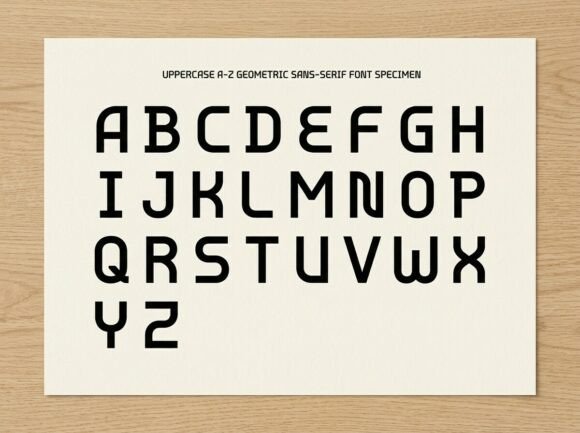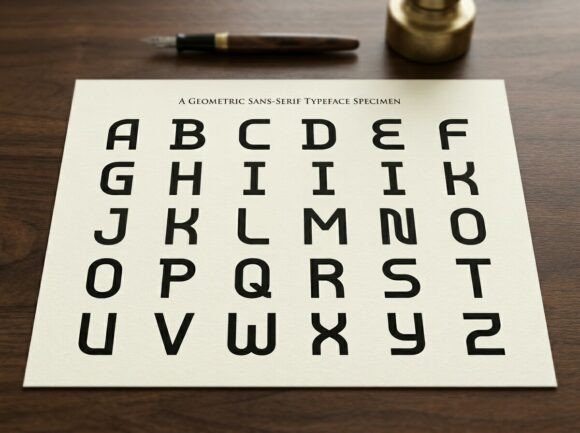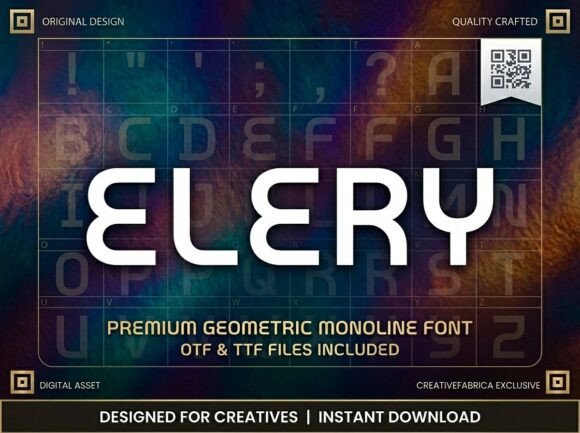
Introducing Elery Font: A Stunning Decorative Display Font
Are you tired of using the same old fonts for your designs? Look no further than Elery Font, a unique and artistic display font that’s sure to turn heads. Designed to be the center of attention, Elery Font features a strong visual personality and versatile style that’s perfect for creators who want to break away from the ordinary.
What Makes Elery Font Special?
Elery Font is a decorative display font that’s specifically designed for high-impact headlines, logos, and decorative initials. With its unique artistic elements and strong visual personality, this font is perfect for designers and crafters who want to add a touch of elegance and sophistication to their work.
One of the standout features of Elery Font is its versatility. Whether you’re looking to create bold headlines, artistic logos, or creative packaging, this font is up to the task. And with its professional and polished finish, you can trust that your designs will look great no matter where you use them.
Before you purchase Elery Font, it’s essential to note that this font is an ALL-CAPS (Uppercase Only) display typeface. This means that it does not include lowercase letters, making it specifically designed for high-impact headlines, logos, and decorative initials where every letter is a work of art.
Don’t worry, though – this font is still incredibly versatile and can be used for a wide range of design projects. Just keep in mind that it’s best suited for display purposes, rather than body text or other applications where lowercase letters are necessary.
Elery Font is perfect for designers and crafters who want to add a touch of elegance and sophistication to their work. Whether you’re working on a branding project, creating packaging, or designing a website, this font is sure to make a statement.
With its unique artistic elements and strong visual personality, Elery Font is ideal for:
- Headlines and Titles: Use Elery Font to create bold, eye-catching headlines and titles that grab attention.
- Logos and Branding: Create a lasting impression with Elery Font, perfect for logos, business cards, and other branding materials.
- Packaging and Product Design: Add a touch of elegance and sophistication to your packaging and product design with Elery Font.
Elery Font is a stunning decorative display font that’s perfect for designers and crafters who want to break away from the ordinary. With its unique artistic elements, strong visual personality, and versatile style, this font is sure to make a statement in any design project.